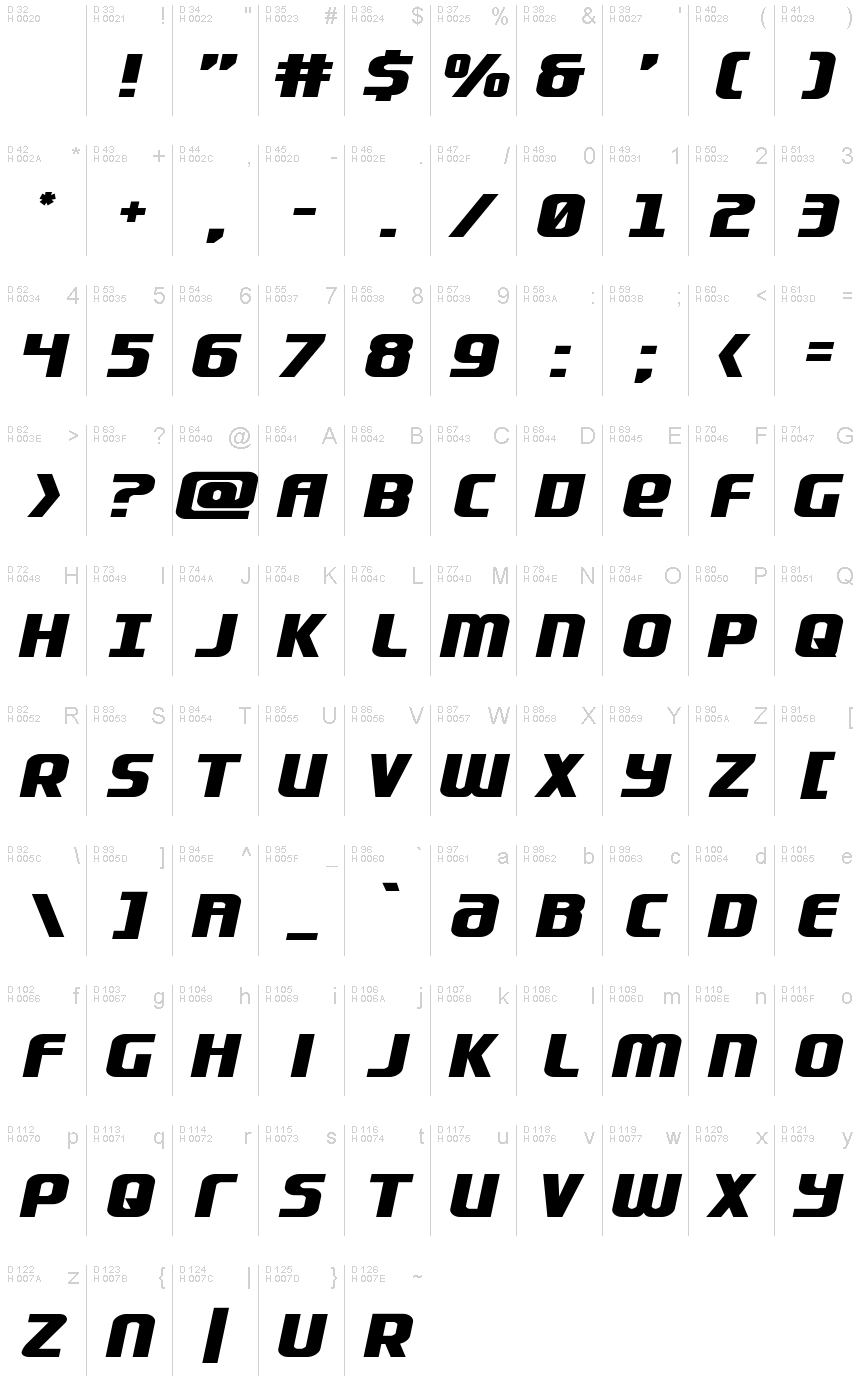
Lightsider Compact Expanded by Daniel Zadorozny of Iconian Fonts is a free extended sans serif built for forceful display work. Its broad, slanted letters push forward with a low, streamlined profile and tightly fitted spacing. Sharp diagonal cuts give several forms a machined edge.
Motorsport posters are an especially convincing use because the aggressive width and forward lean echo racing graphics. It also suits esports branding, action-film title cards, and athletic merchandise with a high-speed industrial look. The lettering belongs most clearly to futuristic sports and mechanical themes.